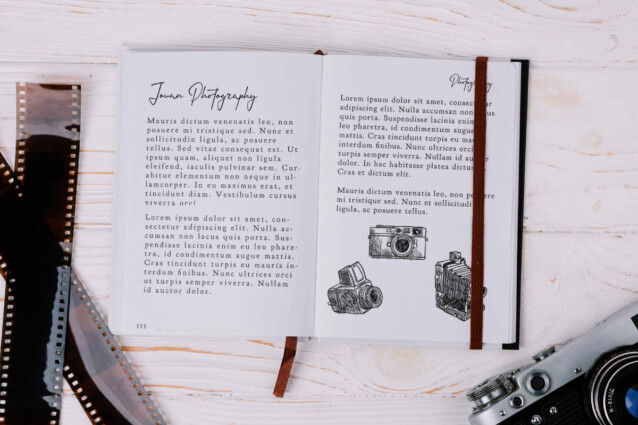
Photo Journalist Font
Photo Journalist Font is a classy and professional handwritten signature font. It’s an artistic typography with a simple look that creates impeccable beauty and suitable for industries, such as advertisement, art fair, author, boutique, café, content creator, fashion designer, furniture, graphic design, handicrafts, hotel, photography studio, printing, publishing, real estate, restaurant, and many more.
Photo Journalist Font comes with a full set of Uppercase and Lowercase Basic Characters, Number, a large range of Punctuation, Symbol, and Swoosh. It has a stunning characters set, perfectly managed with well spaced and kerning. Photo Journalist Font will take your project to another level and is perfect for apps, billboard, brand logo, business card, catalogue, cover, embossed design, label, packaging design, screen print, stationery, title, website, etc.